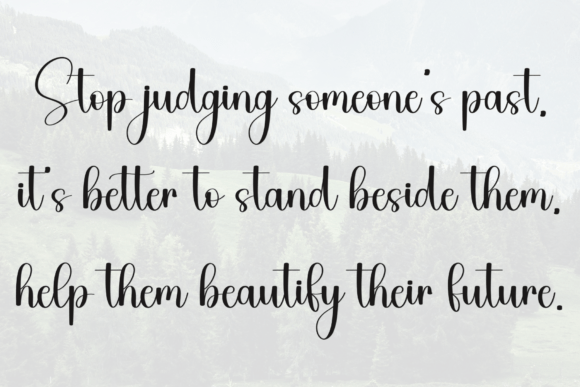
Introducing Workspace Font: The Festive and Merry Typeface for Your Holiday Designs
The holiday season is upon us, and what better way to get into the spirit than with a font that’s as festive and merry as Workspace Font? This decorative typeface is designed to capture the magic of the holiday season, adding a touch of enchantment to your designs. In this article, we’ll take a closer look at Workspace Font, its features, and how you can use it to make your holiday-themed projects shine.
What Makes Workspace Font Special?
Workspace Font is a unique and whimsical typeface that’s perfect for holiday-themed designs. Its decorative elements and nostalgic flair make it an excellent choice for greeting cards, gift tags, and other festive projects. With Workspace Font, you can add a touch of magic to your words, making them stand out from the crowd.
One of the standout features of Workspace Font is its PUA (Private Use Area) encoding. This means that you can access all of the amazing glyphs and ligatures with ease, giving you a wide range of creative possibilities. Whether you’re looking to create custom holiday cards, gift tags, or social media graphics, Workspace Font has got you covered.
Exploring the Glyphs and Ligatures of Workspace Font
Workspace Font comes with a wide range of glyphs and ligatures that can be used to add a touch of whimsy to your designs. From snowflakes and holly leaves to Christmas trees and stockings, the font has a vast array of decorative elements that can be used to create unique and eye-catching designs.
With PUA encoding, you can access these glyphs and ligatures easily, using them to create custom words and phrases that are sure to impress. Whether you’re looking to create a festive holiday message or a custom gift tag, Workspace Font’s glyphs and ligatures make it easy to add a personal touch to your designs.
Design Ideas with Workspace Font
Workspace Font is a versatile typeface that can be used in a wide range of holiday-themed designs. Here are a few ideas to get you started:
- Greeting Cards: Use Workspace Font to create custom holiday greeting cards that are sure to impress your friends and family.
- Gift Tags: Add a touch of magic to your gift tags with Workspace Font’s decorative elements and whimsical flair.
- Social Media Graphics: Use Workspace Font to create eye-catching social media graphics that are sure to stand out from the crowd.
- Holiday Posters: Create festive holiday posters with Workspace Font, adding a touch of enchantment to your designs.
Tips and Tricks for Using Workspace Font
Here are a few tips and tricks to help you get the most out of Workspace Font:
- Experiment with different colors: Workspace Font looks great in a wide range of colors, so don’t be afraid to experiment and find the perfect hue for your design.
- Mix and match glyphs: Workspace Font’s glyphs and ligatures can be mixed and matched to create unique and eye-catching designs.
- Use it with other fonts: Workspace Font can be paired with other fonts to create a wide range of design effects.
The Benefits of Using Workspace Font
Workspace Font offers a wide range of benefits, including:
- Unique and eye-catching designs: Workspace Font’s decorative elements and whimsical flair make it easy to create unique and eye-catching designs.
- Easy to use: Workspace Font is easy to use, even for those with limited design experience.
- PUA encoding: Workspace Font’s PUA encoding makes it easy to access all of the amazing glyphs and ligatures.
Workspace Font is a festive and merry typeface that’s perfect for holiday-themed designs. With its decorative elements, whimsical flair, and PUA encoding, it’s an excellent choice for greeting cards, gift tags, and other festive projects. Whether you’re a designer or just looking to add a touch of magic to your holiday designs, Workspace Font is sure to impress.